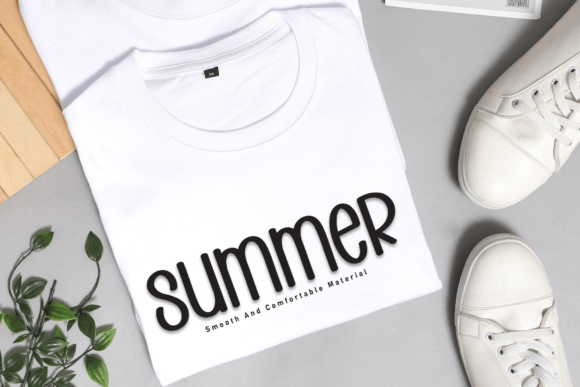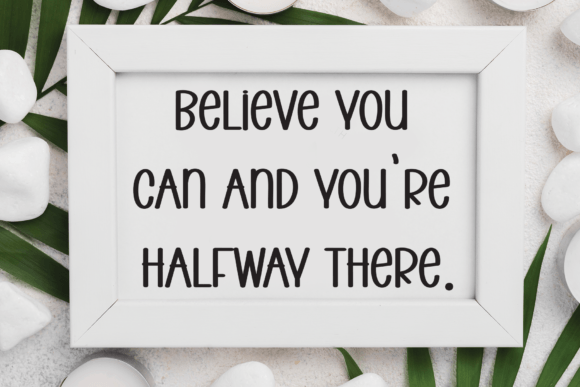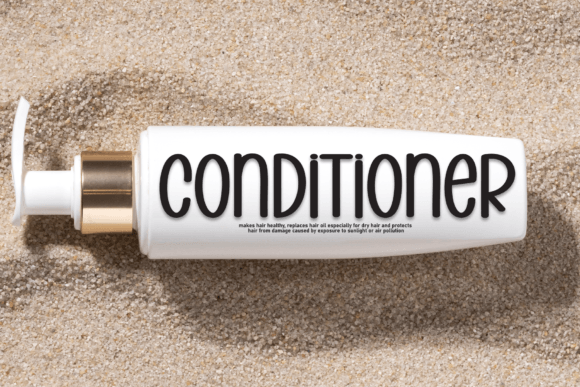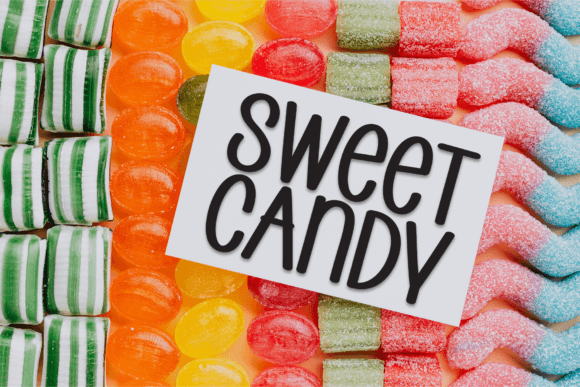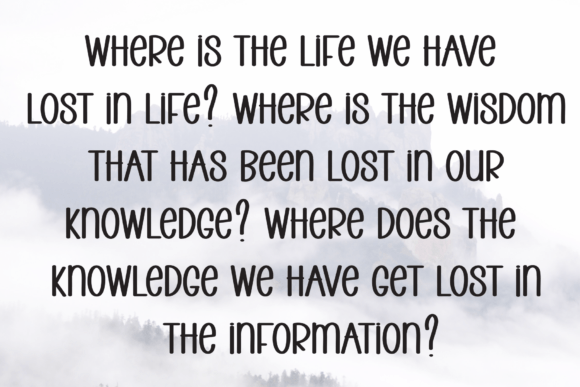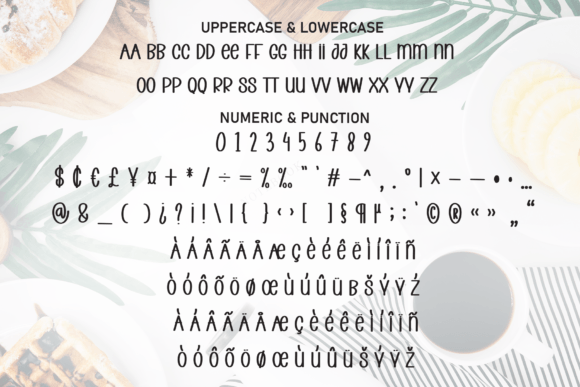
When Creativity Strikes on a Friday Afternoon
Who hasn’t experienced that moment when the workweek is winding down, and the excitement of a weekend ahead takes over? The world seems to slow down, and your imagination starts running wild. You envision the perfect project, the perfect design, and the perfect way to express yourself. It’s a feeling of liberation and freedom, where the possibilities seem endless.
That’s exactly the vibe you’ll get with the Hello Weekend Font, a casual handwritten font that embodies the carefree spirit of the weekend. This font is perfect for personal projects, social media, and invitations, bringing an effortless charm to any design. As a designer, you’ll appreciate the Hello Weekend Font’s easygoing style, which adds warmth and authenticity to your work, making it stand out from the crowd.
Hello Weekend Font Key Features
- Font Family: Hello Weekend, a modern sans-serif font designed for headlines and titles.
- Unique Characteristics: Features a unique blend of geometric and organic shapes, giving it a modern and sophisticated look.
- Kerning and Ligatures: Includes advanced kerning and ligature pairs for improved text readability and aesthetics.
Hello Weekend Font Review
Overall, I think the Hello Weekend Font has some great qualities that make it a solid choice for designers, but it also has some limitations that might make it less ideal for certain projects.
High-quality design: The font has a unique, modern aesthetic that’s perfect for brands and businesses that want to stand out from the crowd.
Good for headings: The font’s bold and condensed design makes it ideal for headings and titles, where it can really make a statement.
Legibility: The font is well-designed for body text, with clear letterforms and a good x-height.
Not ideal for small text: The font’s condensed design can make it difficult to read at small sizes, which might be a problem for body text or captions.
May not be suitable for long blocks of text: The font’s unique design can make it feel overwhelming when used in large quantities, which might be a problem for longer texts or articles.
Limited language support: The font may not be available in as many languages as some other fonts, which could be a problem for global brands or businesses.
Overall, I think the Hello Weekend Font is a solid choice for designers who want a modern, unique font for their projects. However, it may not be the best choice for every project, and designers should be aware of its limitations before using it.
Getting the Most Out of the Hello Weekend Font
To get the most out of the Hello Weekend Font, use it to create eye-catching titles, headings, and quotes in your designs. It’s perfect for creating a fun and casual atmosphere.
The Hello Weekend Font is commonly used in:
– Event invitations
– Blog posts and articles
– Merchandise and apparel design
Alternatives to “Hello Weekend Font” for Designers
Pacifico is a beautiful script font perfect for creating a relaxing and elegant atmosphere. It’s ideal for use in invitations, wedding designs, and other creative projects where a touch of sophistication is needed.
Compared to Hello Weekend Font, Pacifico has a more refined and delicate feel, making it suitable for a wider range of applications. While Hello Weekend Font is more playful and casual, Pacifico is more versatile and elegant.
Great Vibes is a modern script font that’s perfect for creating a fun and lively atmosphere. It’s ideal for use in social media graphics, advertisements, and other creative projects where a touch of playfulness is needed.
Compared to Hello Weekend Font, Great Vibes has a more dynamic and energetic feel, making it suitable for applications where a bold statement is needed. While Hello Weekend Font is more laid-back and casual, Great Vibes is more energetic and attention-grabbing.